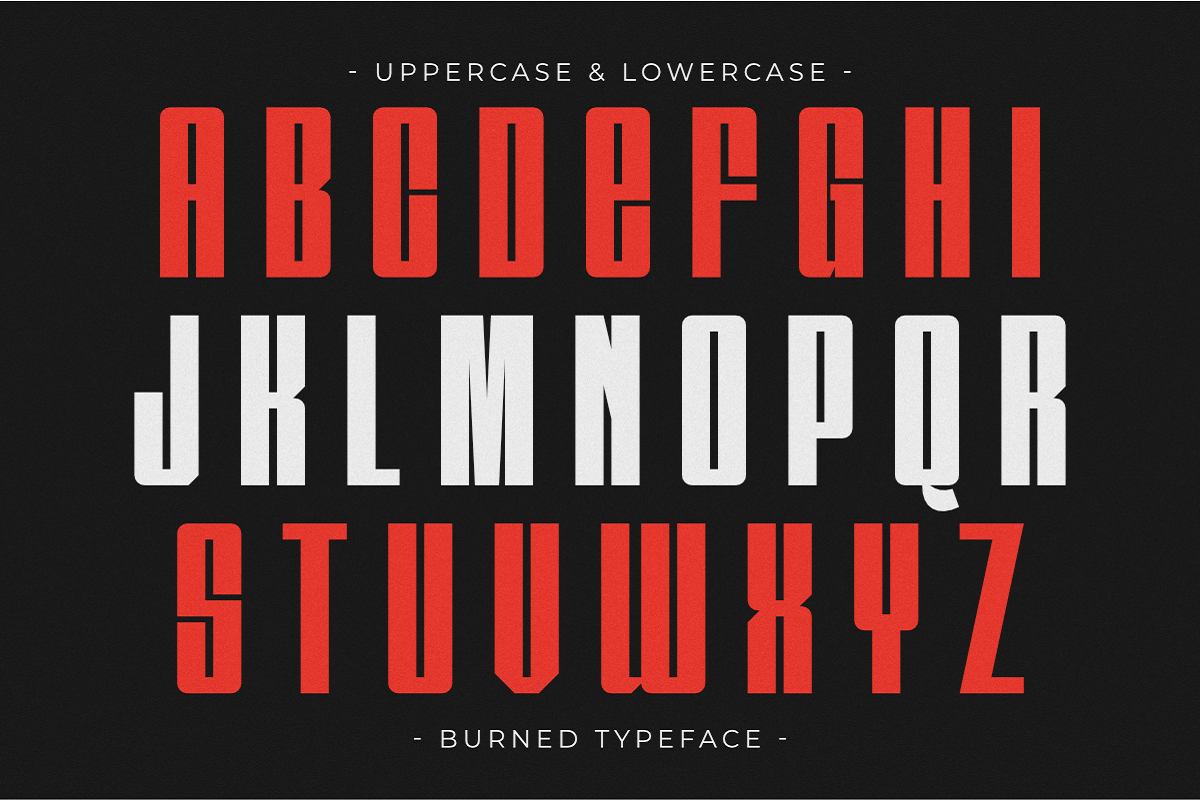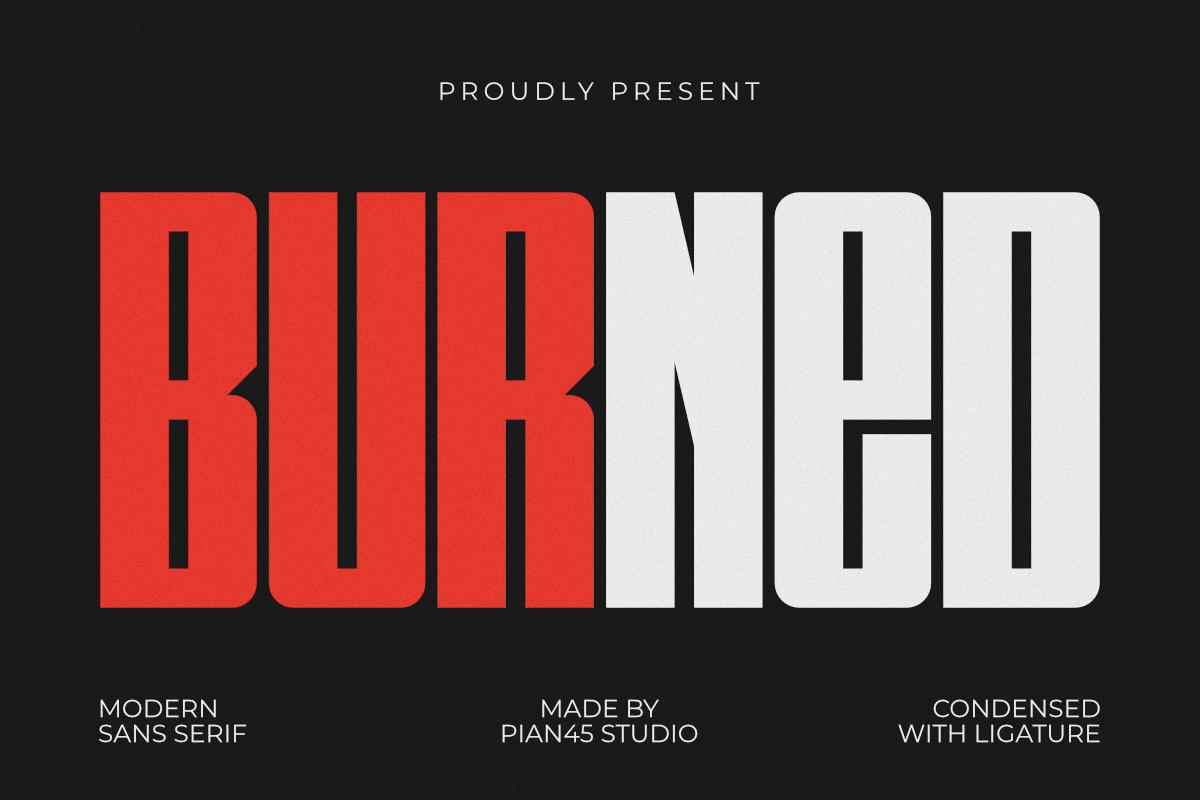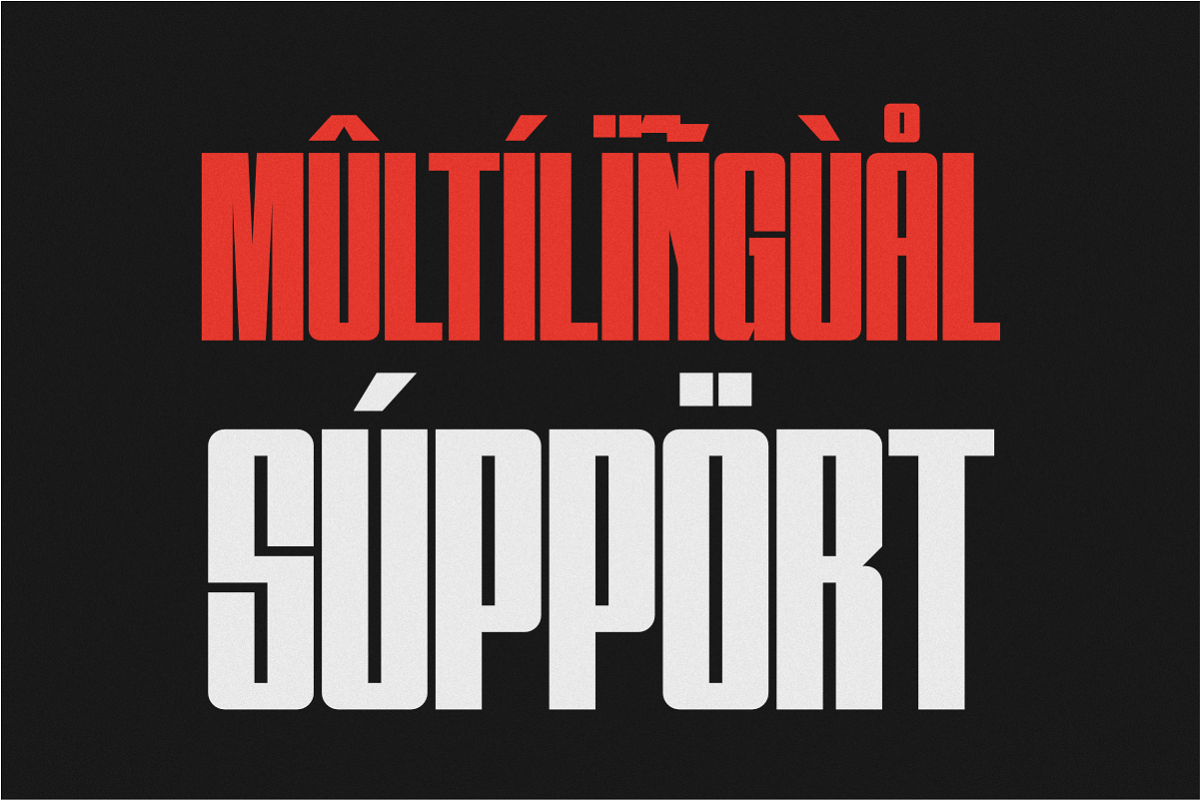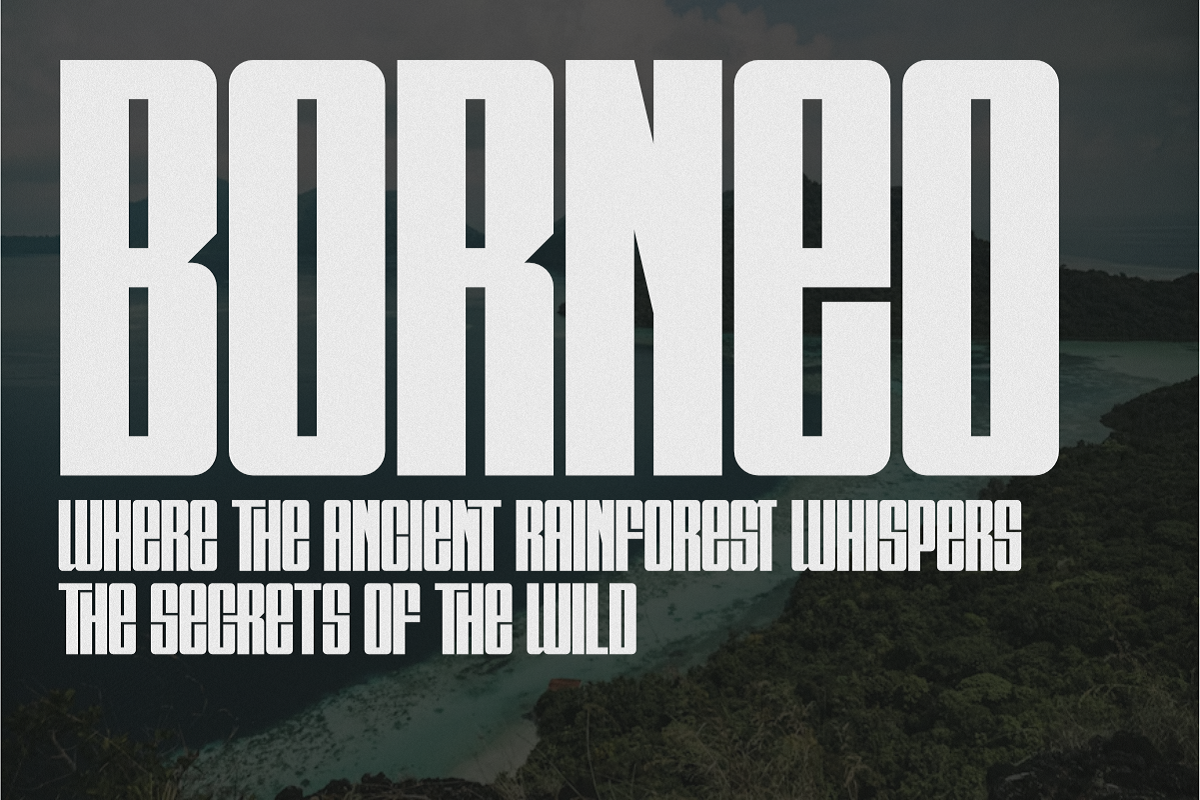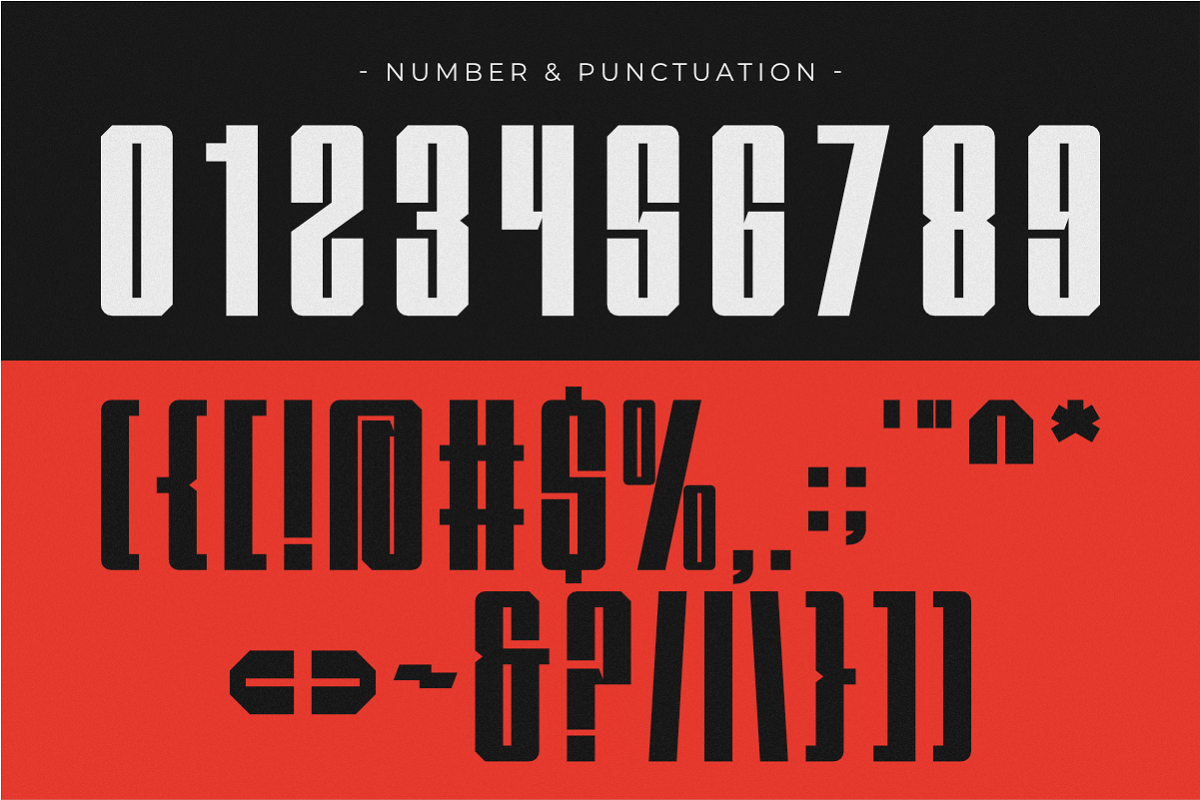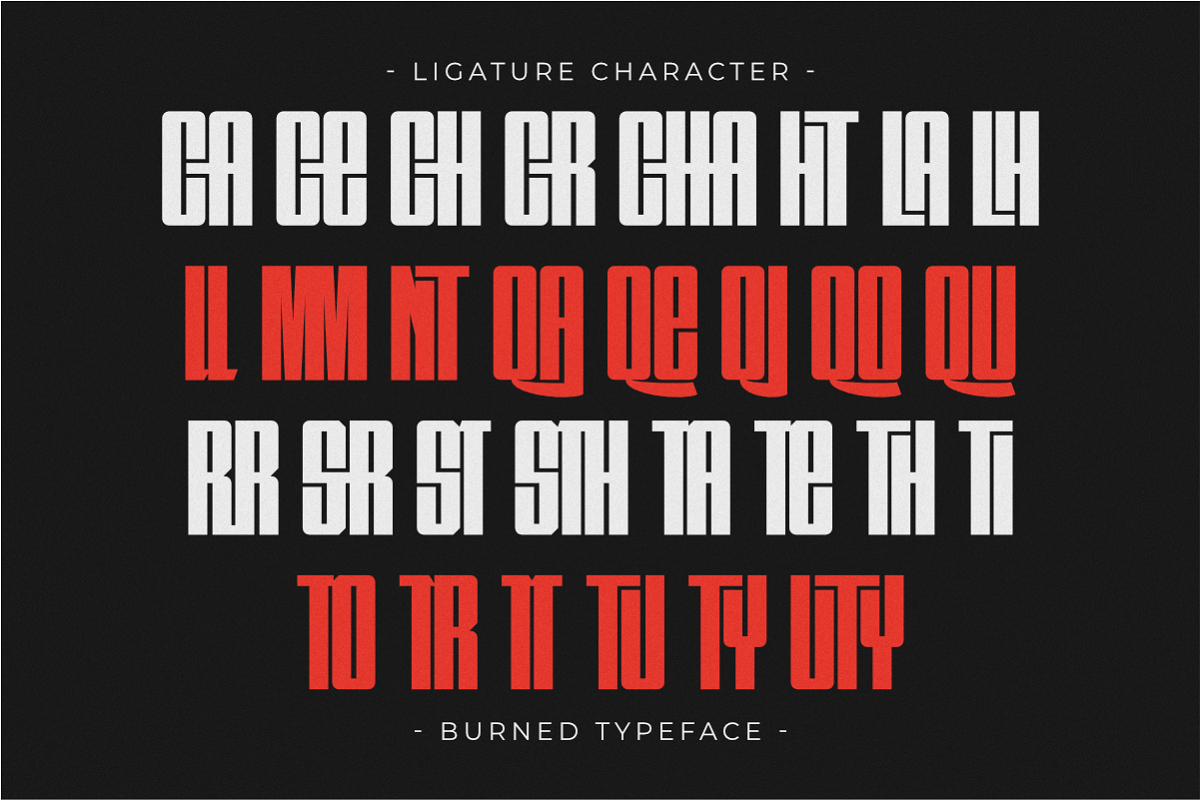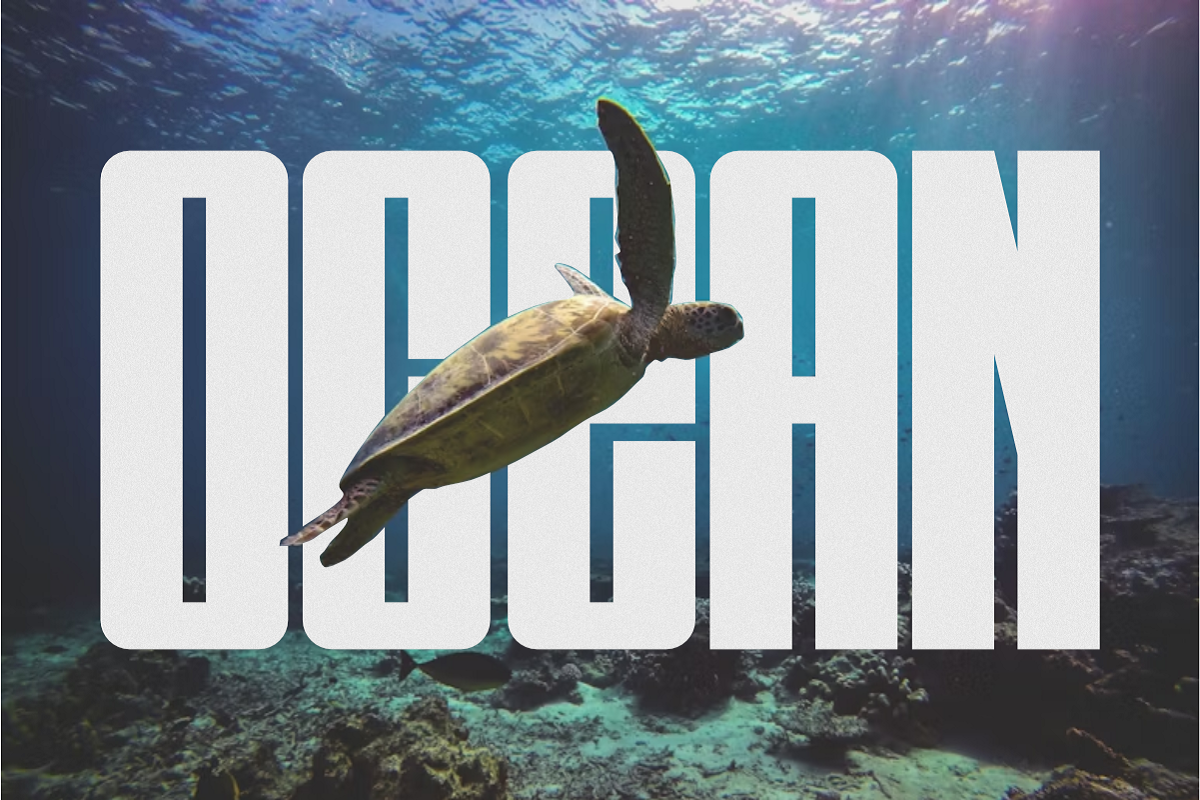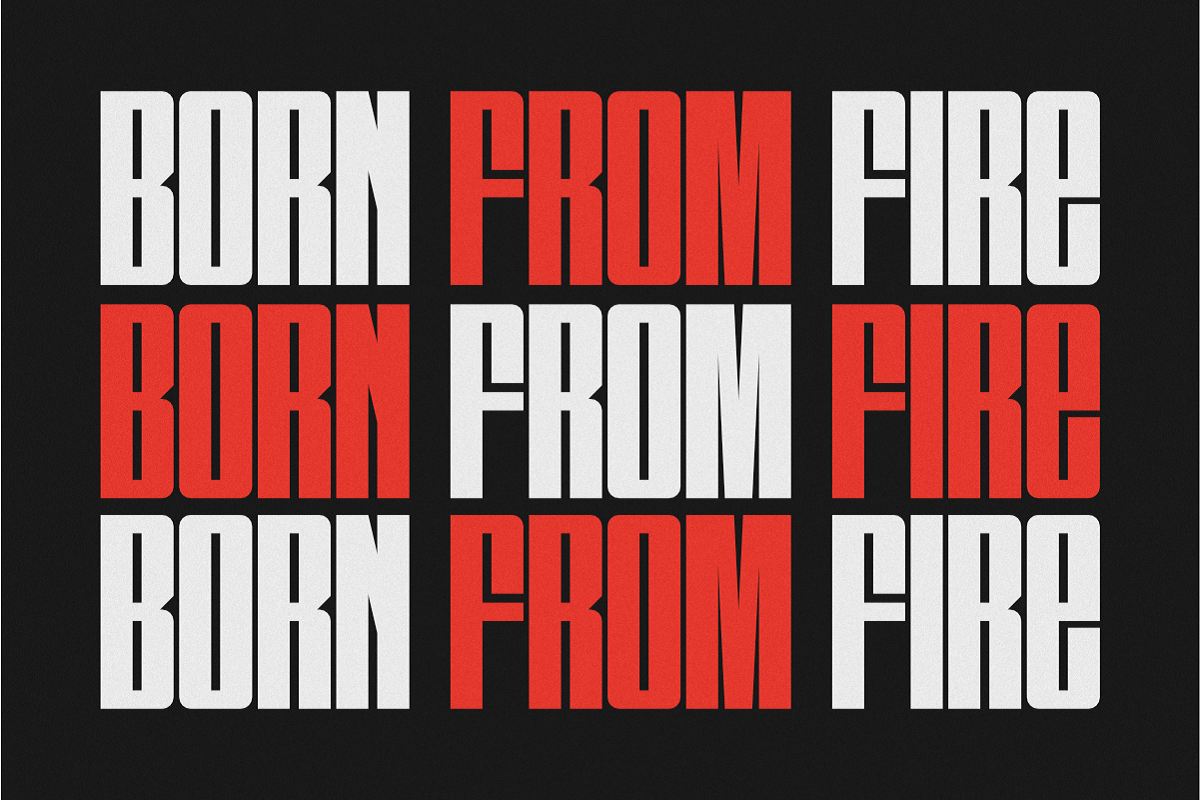
Burned - Modern Sans Serif Font
Burned is a powerful and gritty Modern Sans Serif font featuring a bold condensed structure with a unique distressed texture. This high-impact typeface is designed for a fearless aesthetic, making it perfect for streetwear branding, vintage-style sports logos, urban posters, and industrial headlines. Its rugged, worn-out texture combined with a clean vertical silhouette delivers a strong and authentic visual identity, ideal for merchandise and digital projects that require a bold, weathered look with maximum authority.